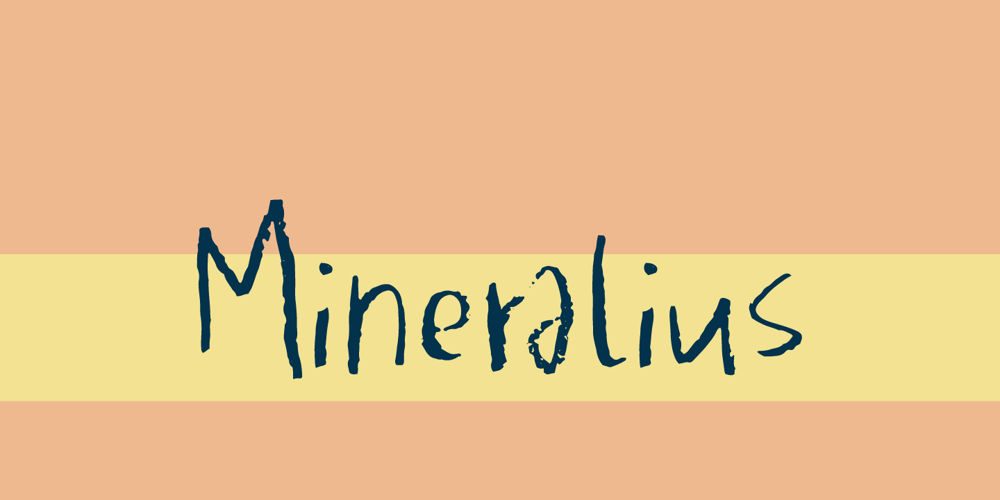
Mineralius
Mineralius font
Mineralius Font Family was designed by Jakob Fischer and published by PizzaDude.dk. Mineralius contains 2 styles and family package options. A crazy crayon font with sweet attitude – multilingual and fresh!